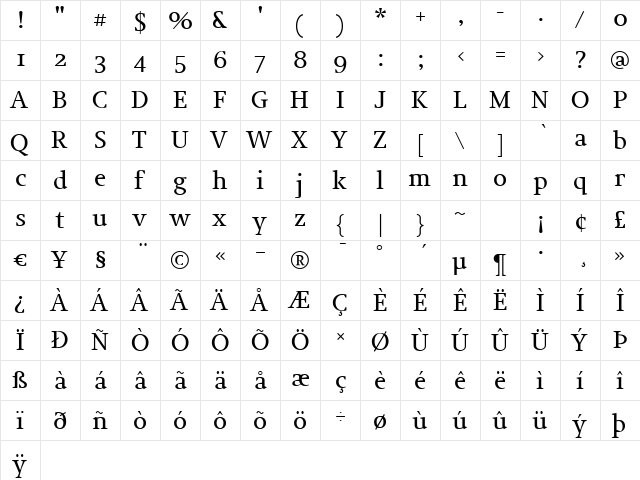
JudeMedium Regular
JudeMedium offers clean, dependable letterforms without strong stylistic allegiance, making it a practical choice for designers who need flexibility.